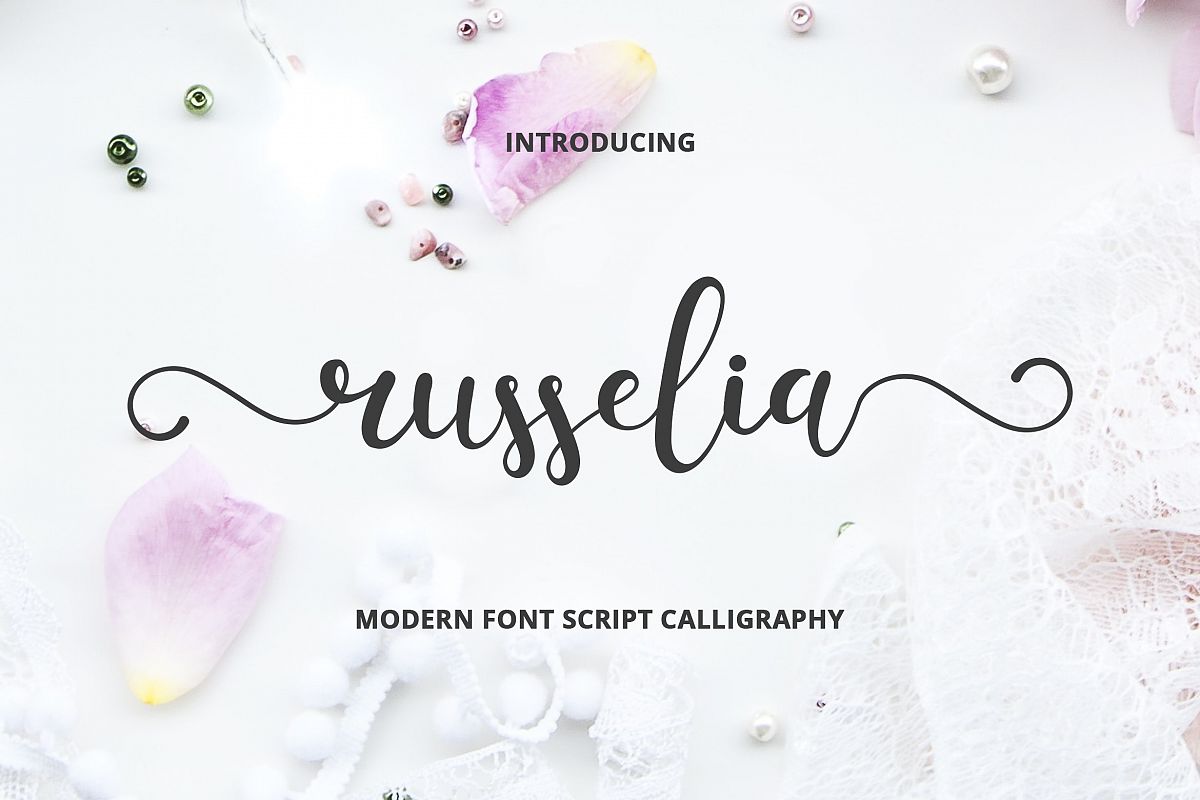
Russelia
Russelia is good for quotes, wedding invitation, cards, posters, t-shirts, branding, clothing, and apparel etc.
• Upper and lowercase characters, numerals, punctuations and a wide language support.
• Full swashes for lowercase characters to make your design look superbly unique!